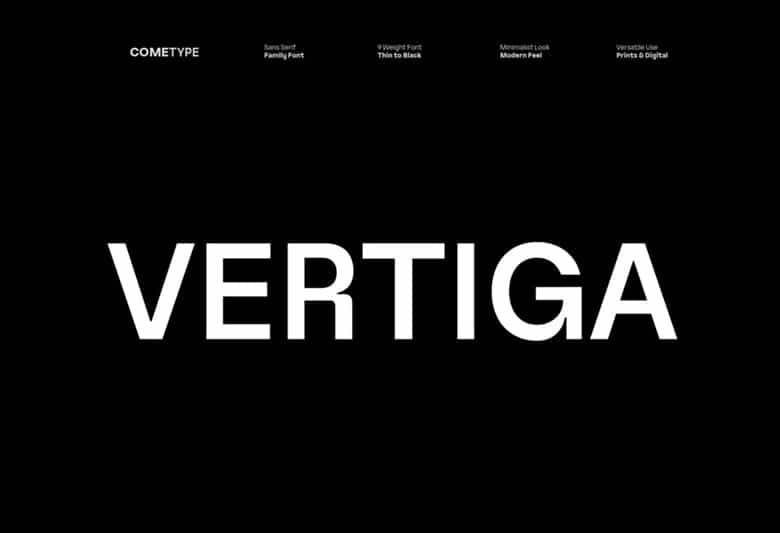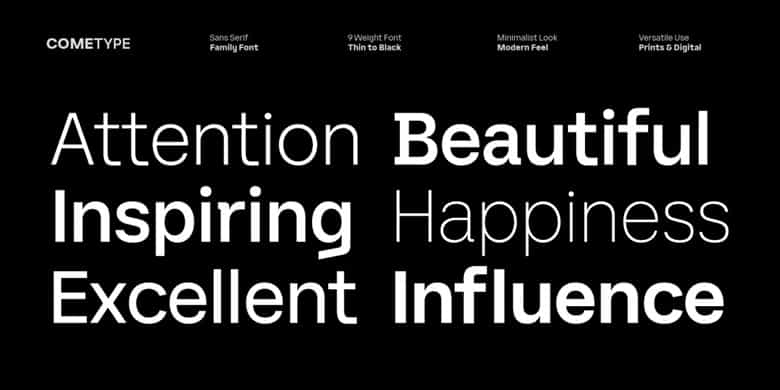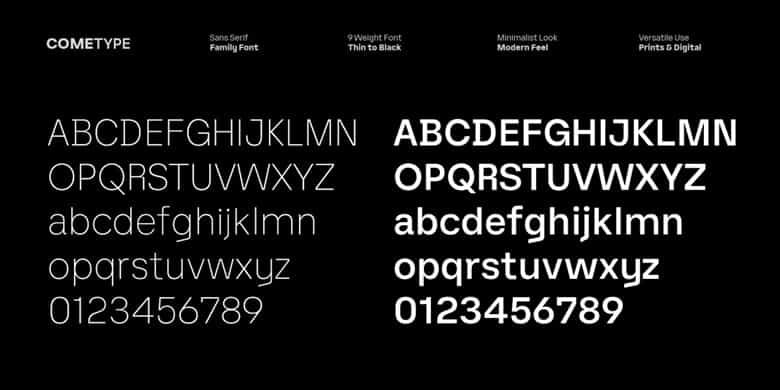
Vertiga is a new sans serif typeface suitable for different purposes or occasions as it is simple and elegant. They come in 9 weights from Thin to Black, providing an equal balance of beauty and usability whenever one is designing. Its smooth flowing lines, sharp edges, and a modern style make it an excellent font for logo designing, magazine design, web designing and typesetting.